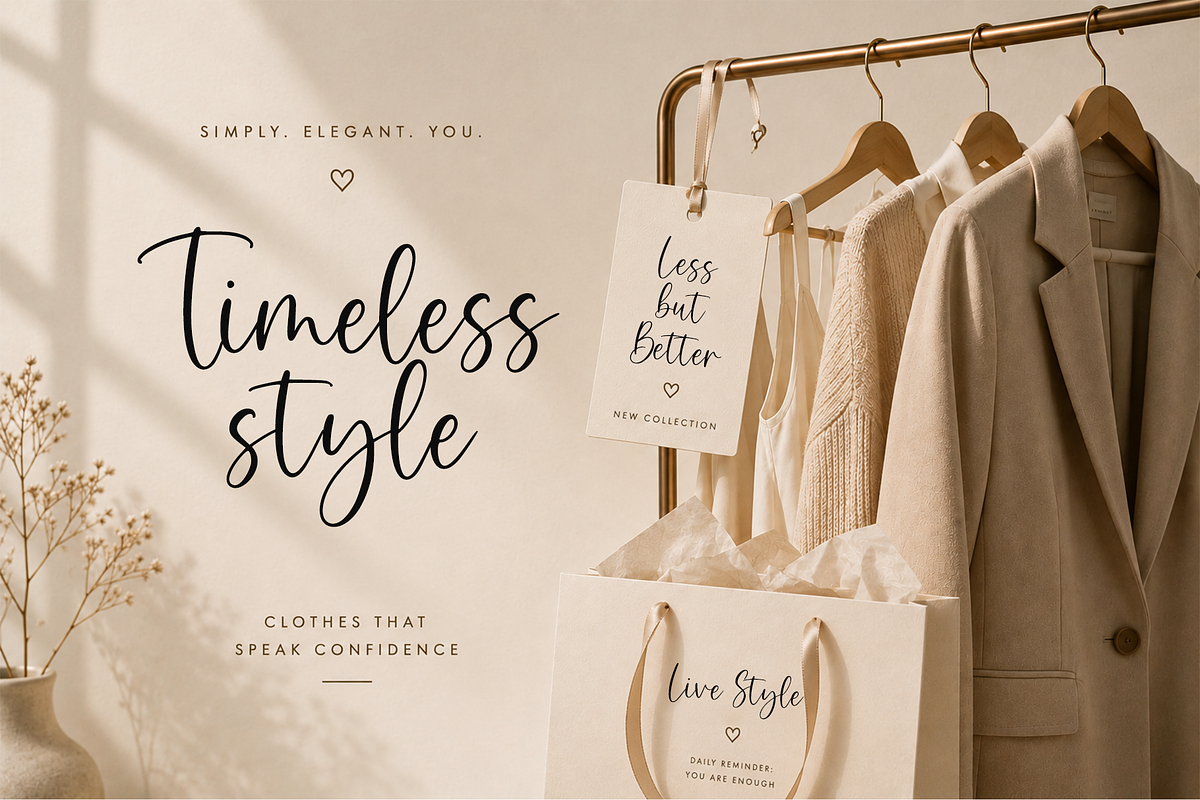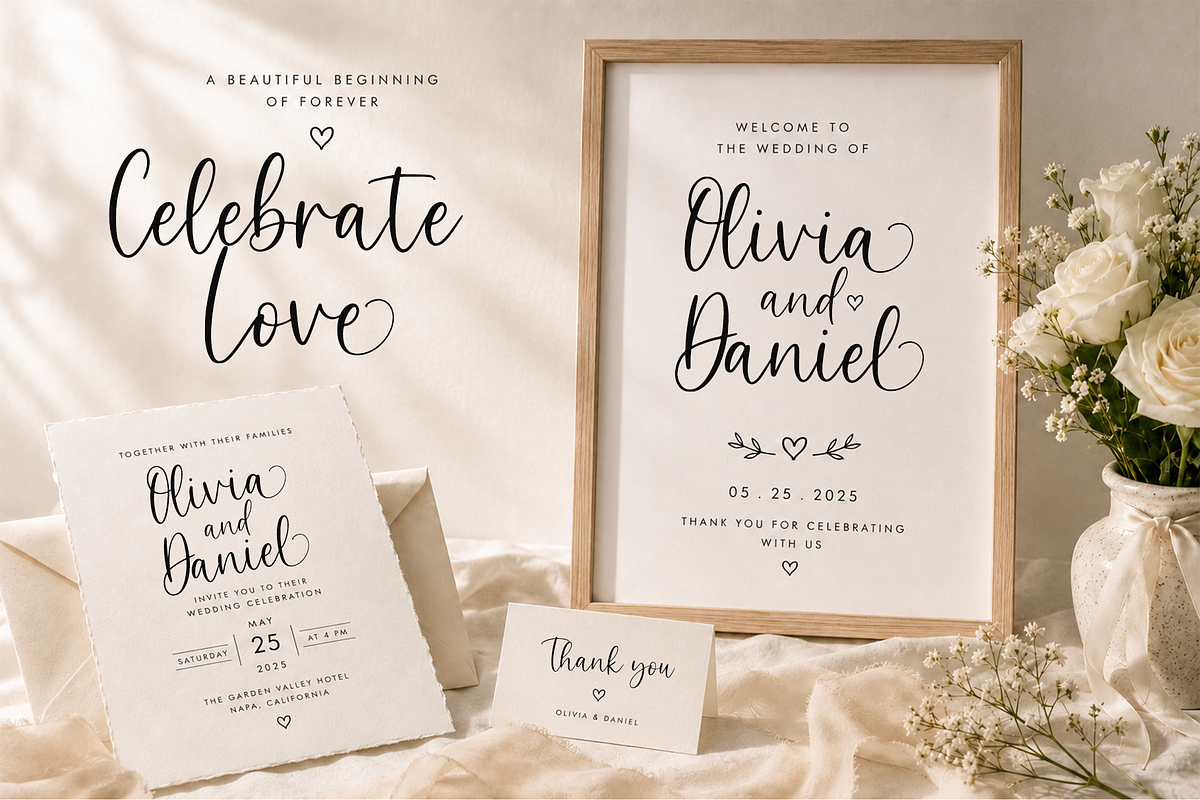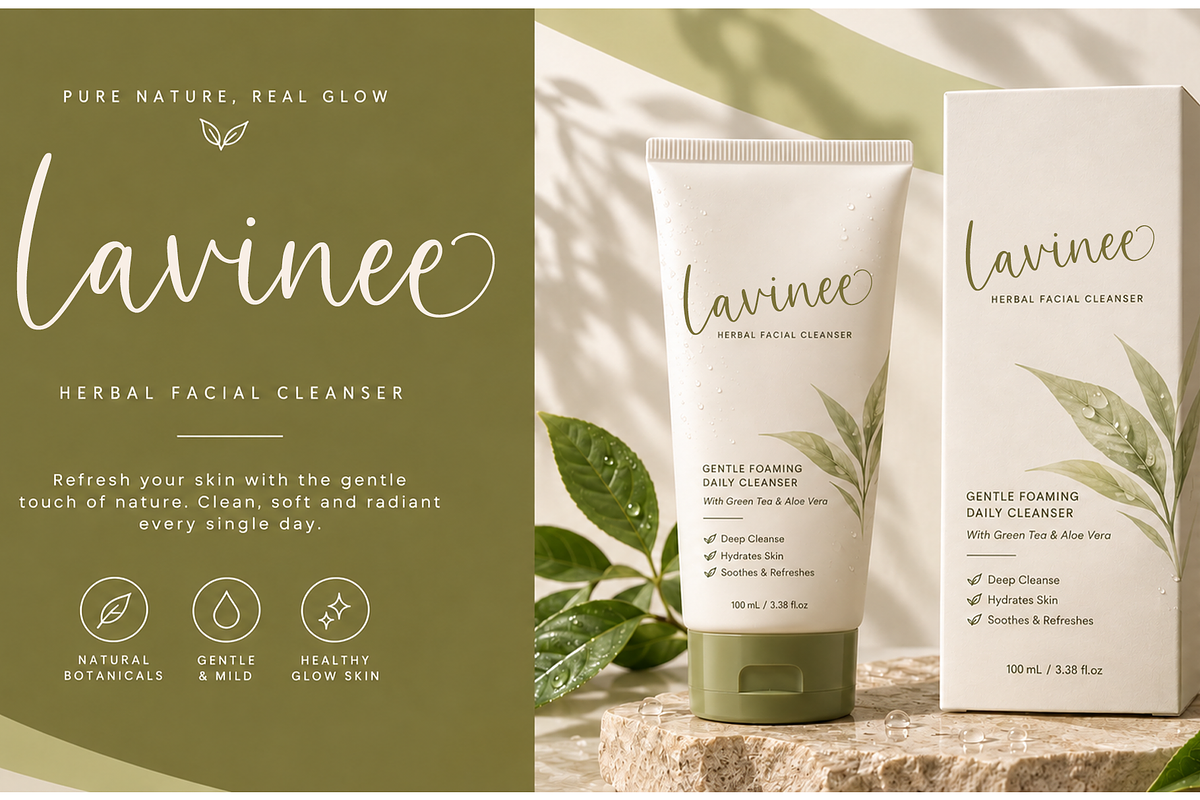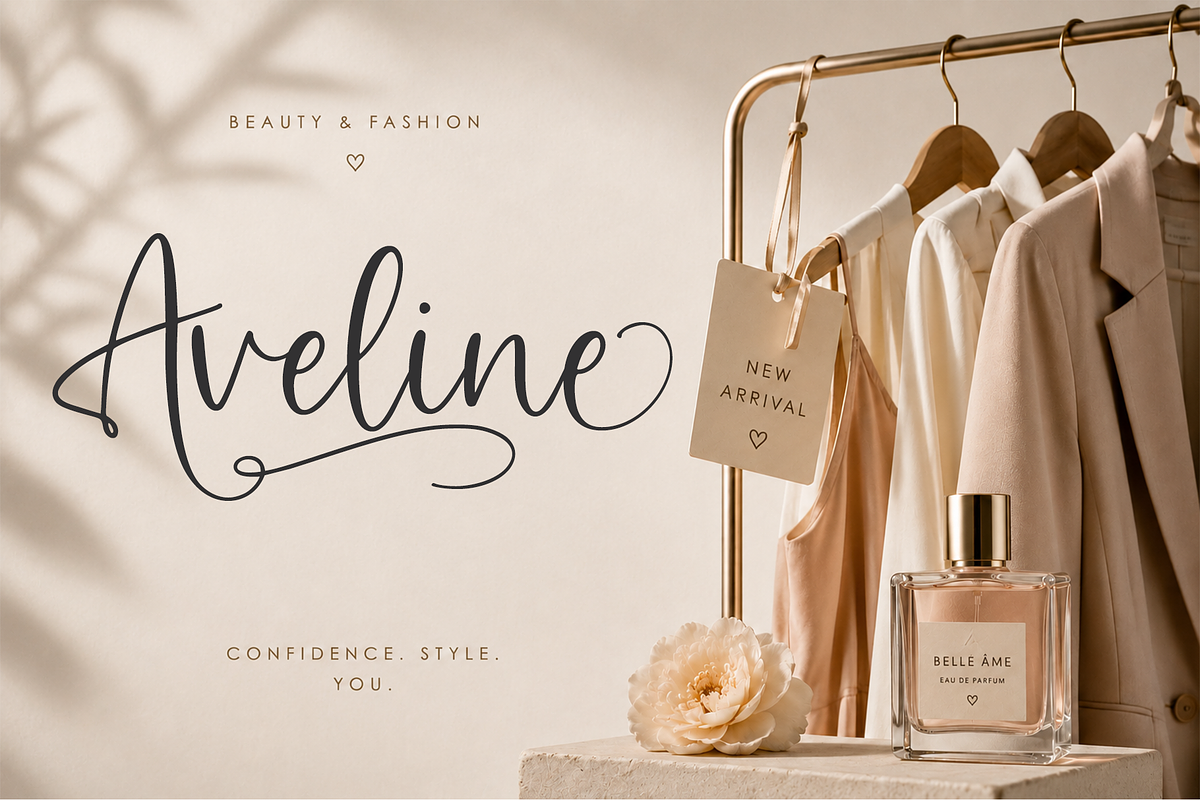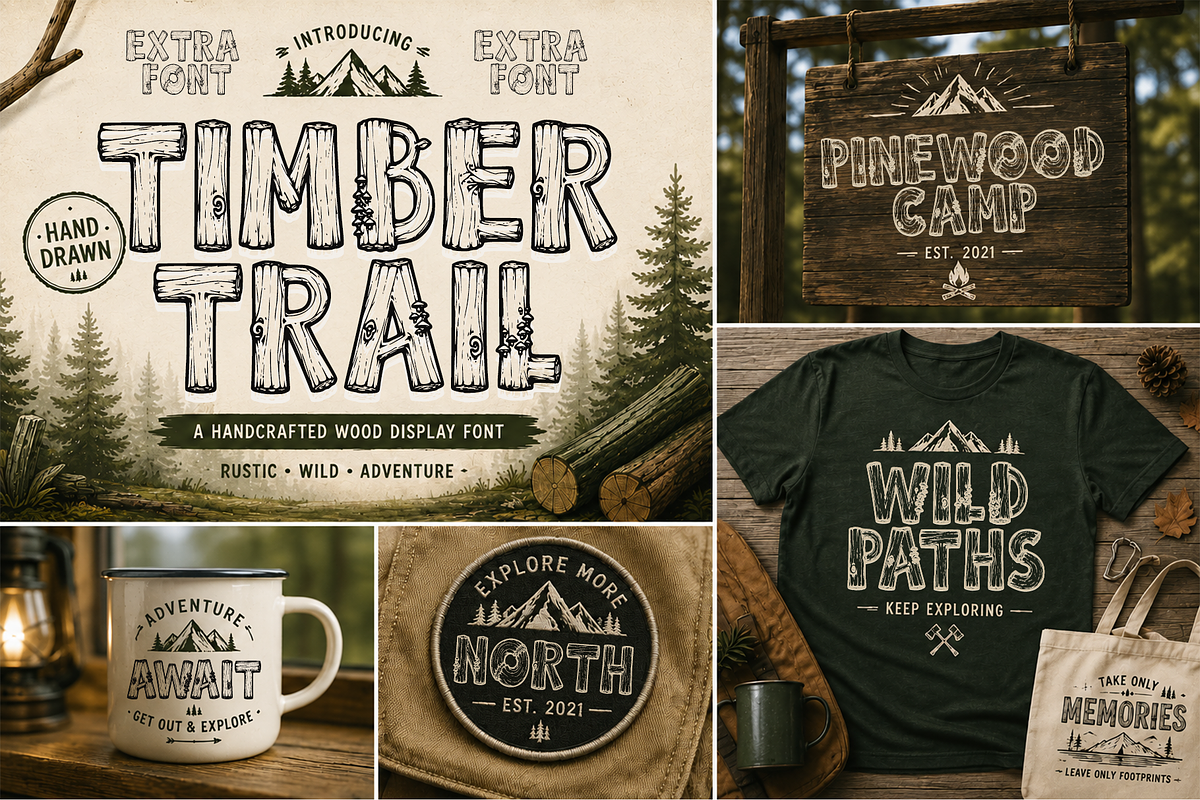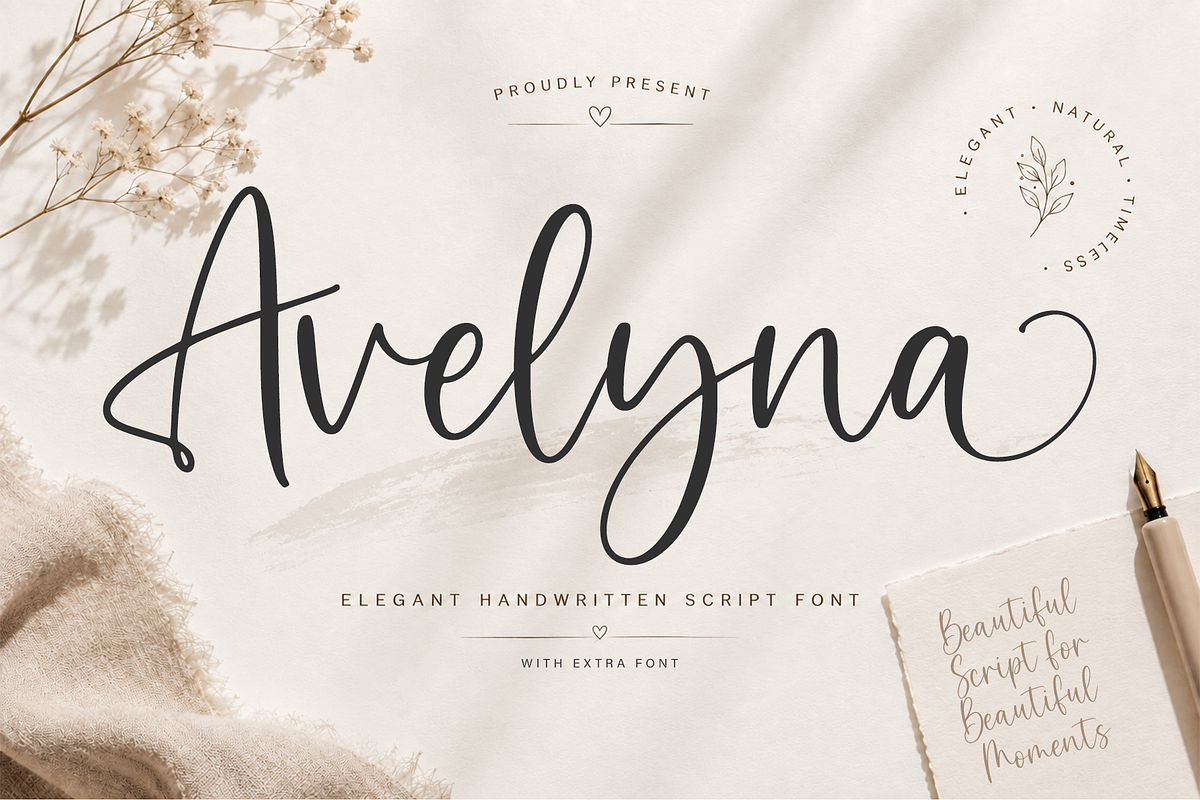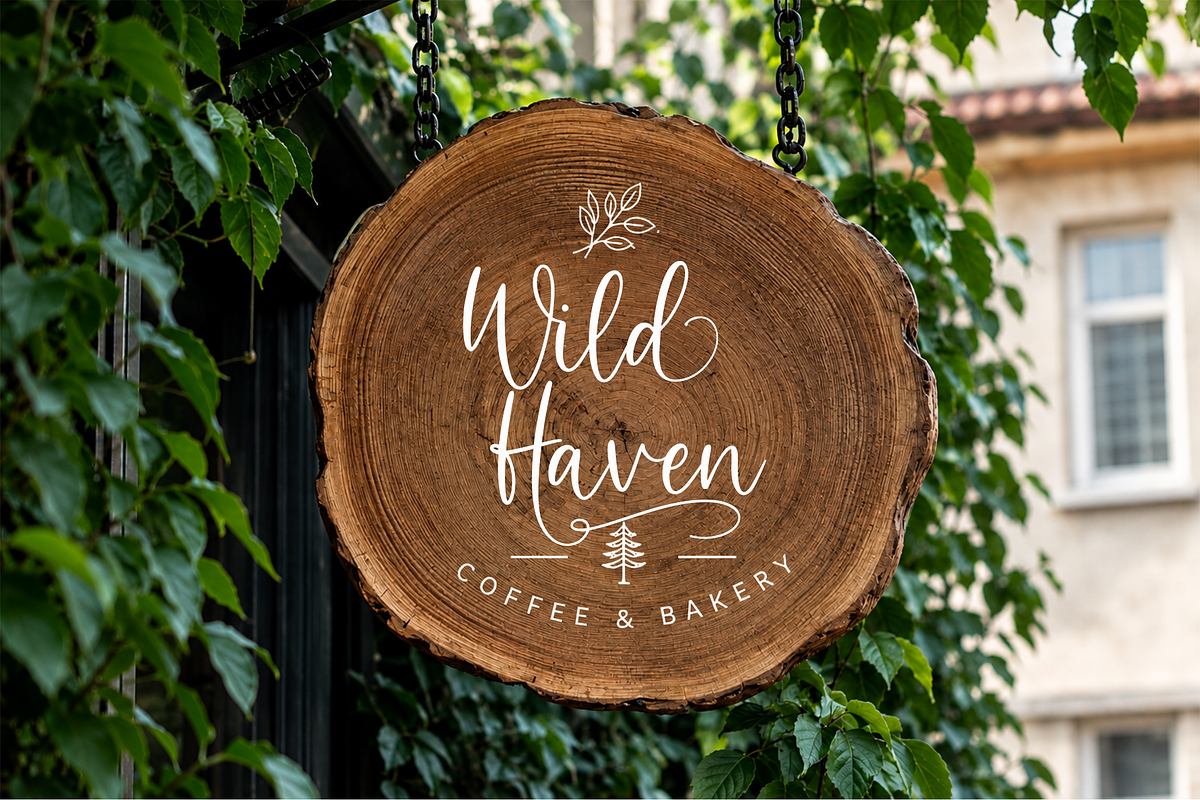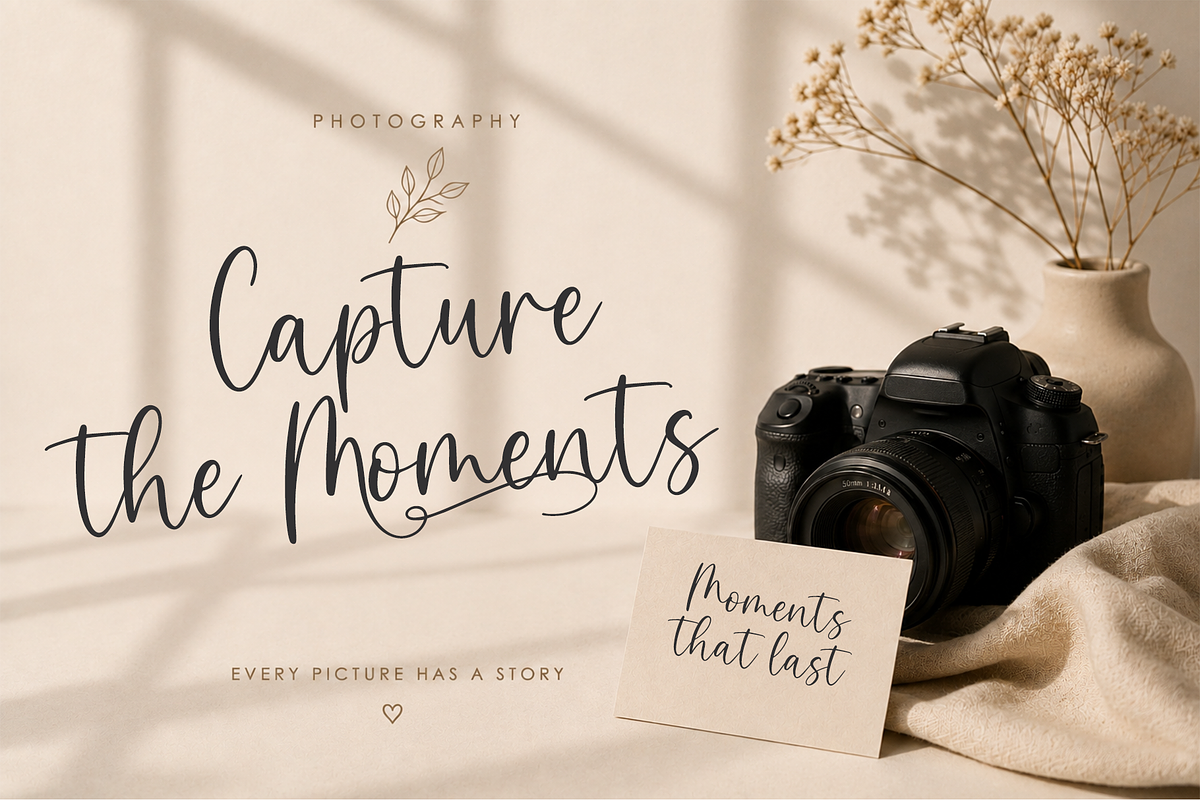
Avelyna – Elegant Handwritten Script
Avelyna is an elegant handwritten script font with graceful flowing strokes, expressive letterforms, and a natural handwritten character. Its smooth and refined style creates a sophisticated, romantic, and timeless appearance while maintaining an authentic handwritten feel.
With its beautiful curves and flowing rhythm, Avelyna is designed to bring elegance and personality to a wide range of creative designs, from refined branding and stationery to invitations, packaging, apparel, quotes, and lifestyle projects.
BONUS EXTRA FONT — TIMBER TRAIL
Included as a bonus extra font, Timber Trail is a bold handcrafted display font inspired by natural wood, rustic signs, forests, camping, and outdoor adventures.
Its distinctive wood-inspired letterforms bring a rugged, handmade, and adventurous character to designs, making it a great complementary bonus for creating rustic and outdoor-themed artwork.